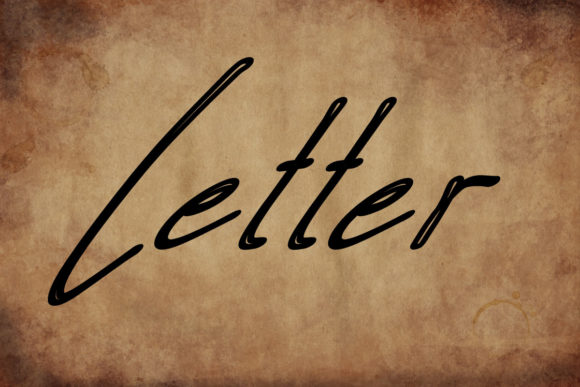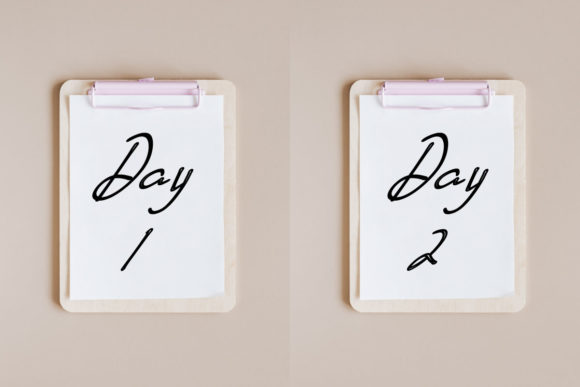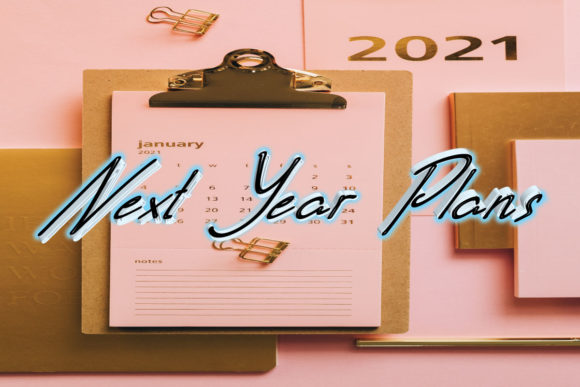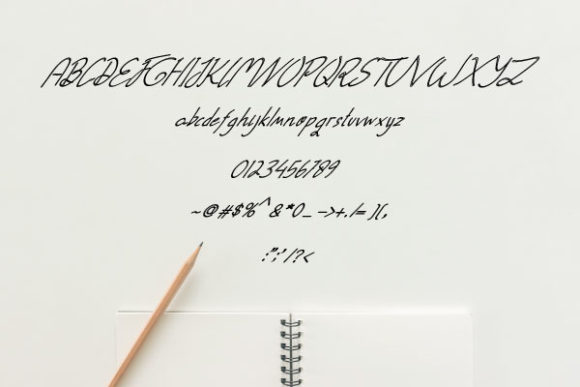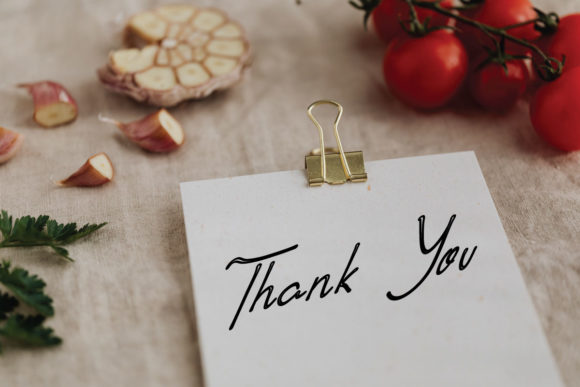
Letter Font
About Letter Font
Letter is a handwritten font with irregular, overlapping lines and so much charism in each character! Add a personal touch to your next design with this font.